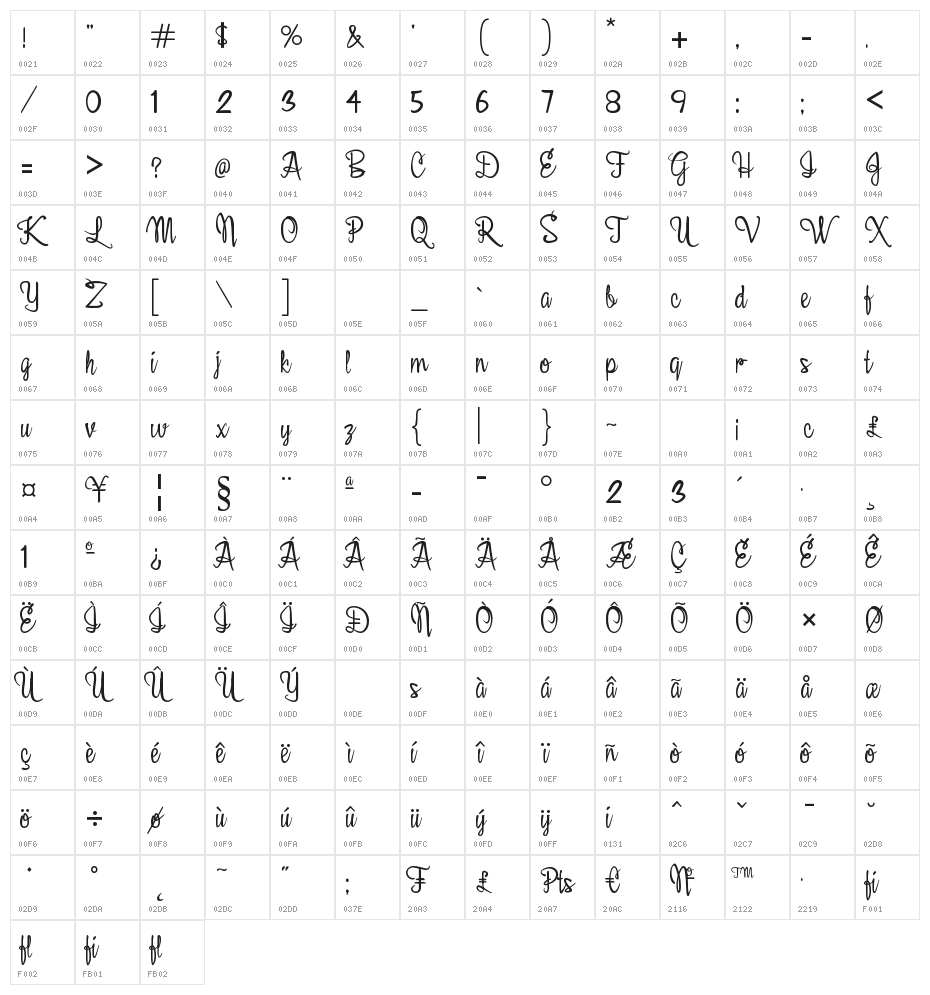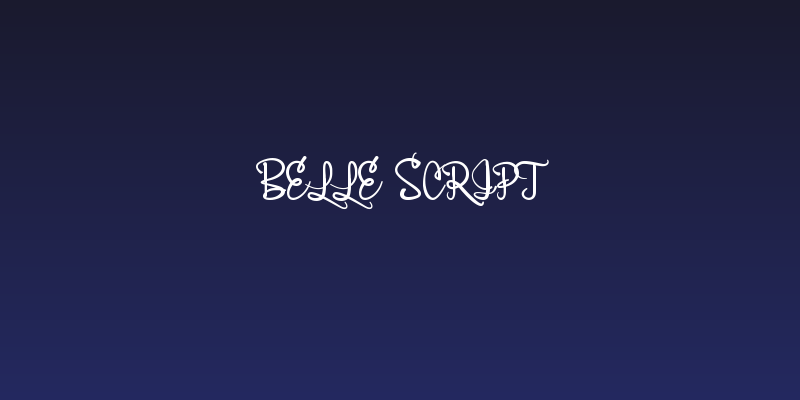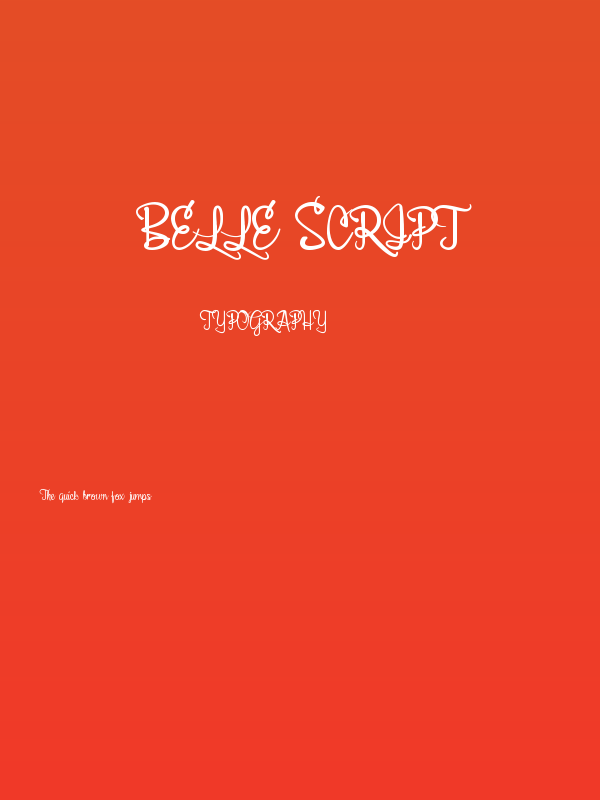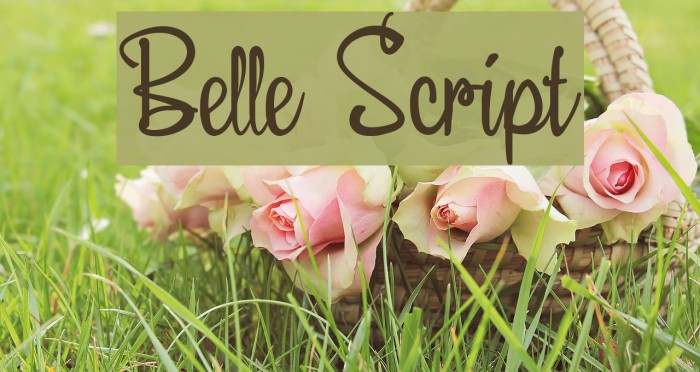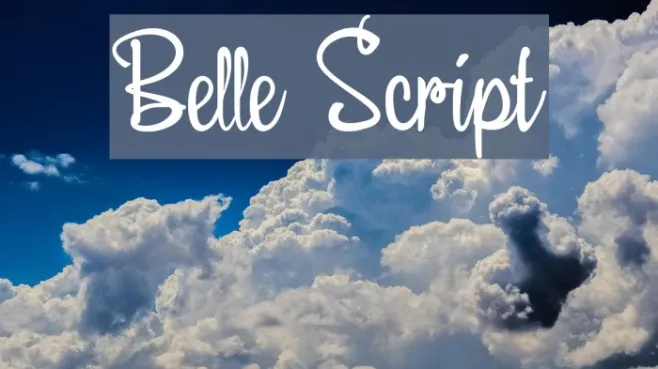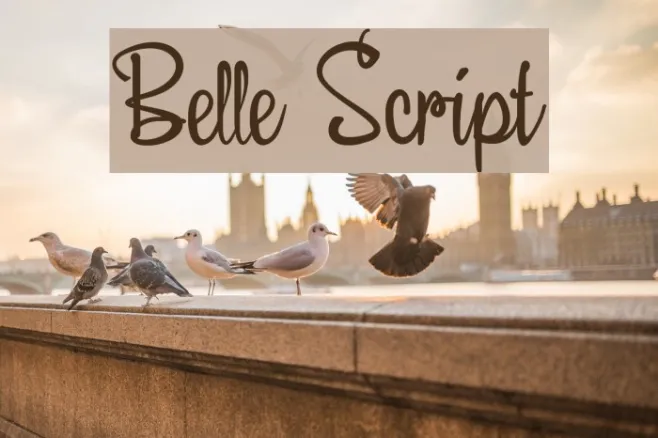
Belle Script Font
Belle Script Description
This script font exudes elegance and fluidity, characterized by its flowing, cursive strokes that mimic the natural handwriting style. The uppercase letters are ornate, with intricate loops and swirls that add a touch of sophistication. The lowercase letters maintain a consistent flow, enhancing readability while retaining the decorative flair. Numbers and special characters are crafted with the same attention to detail, ensuring a cohesive look across all text elements. The font's overall appearance is both graceful and dynamic, making it suitable for projects that require a personal, artistic touch.
| Proposed Projects | Ideal for wedding invitations, greeting cards, logos, and branding materials that seek a personal and artistic touch. |